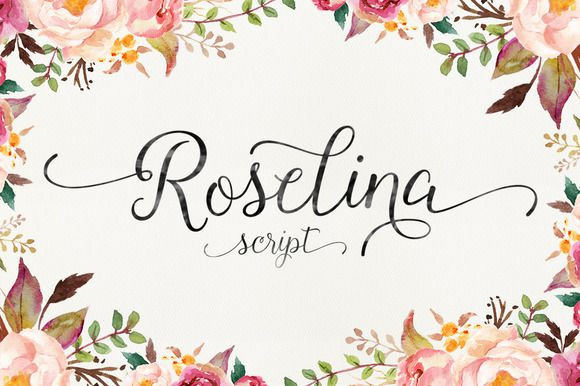
Roselina Script Font
Roselina Script is a contemporary calligraphy, with a vintage feel, style calligraphy with moving baseline and elegant touch. features 340+ glyphs and 105 alternate character, appearance initial letter and terminal letters, can be adjusted by using the glyph palette. alternately swashes, stylistic sets, ligatures and multiple language support.